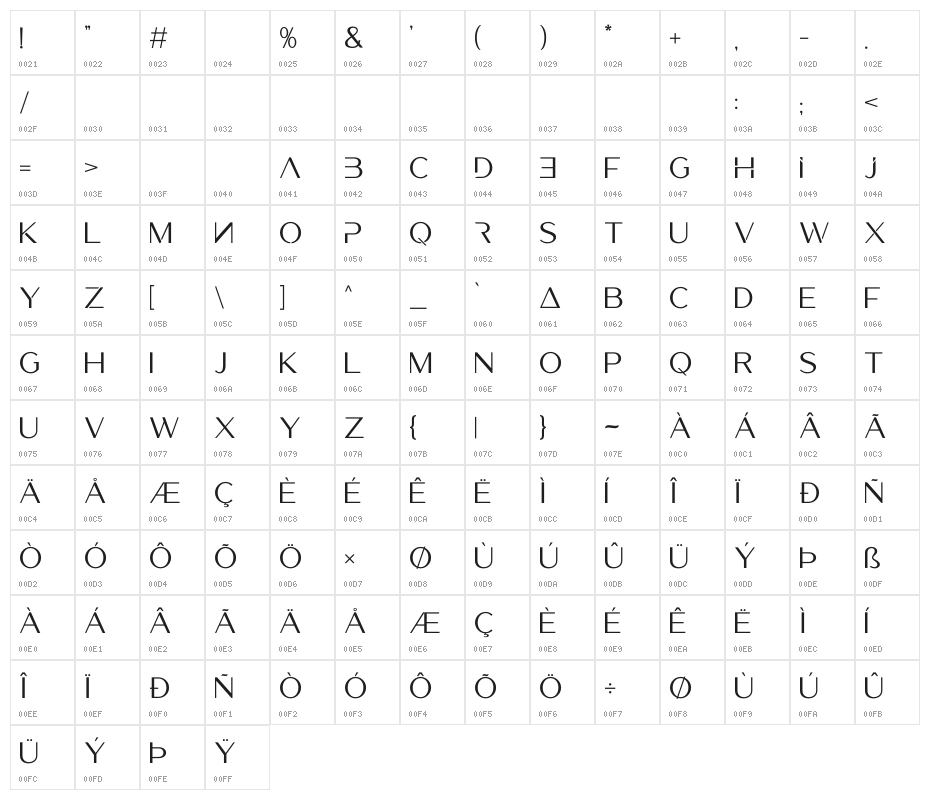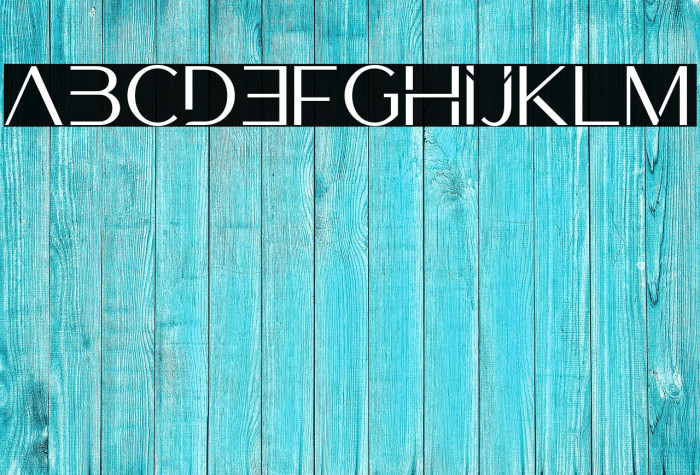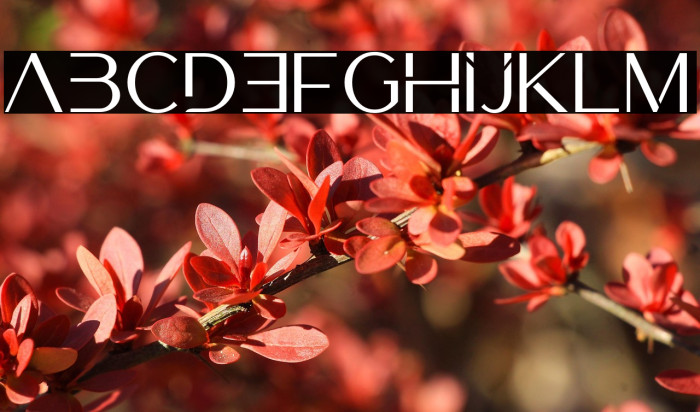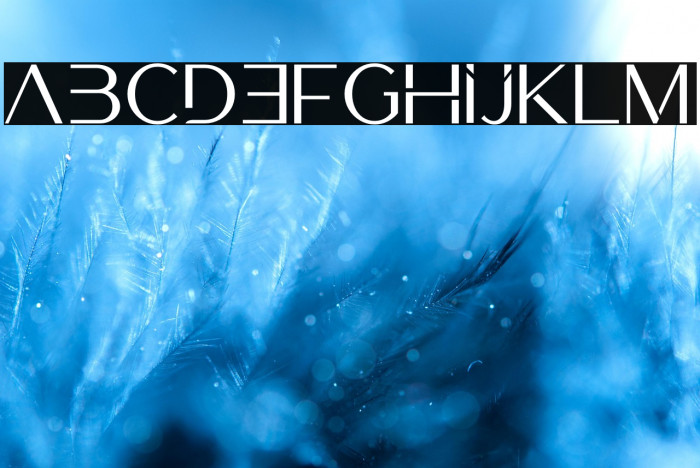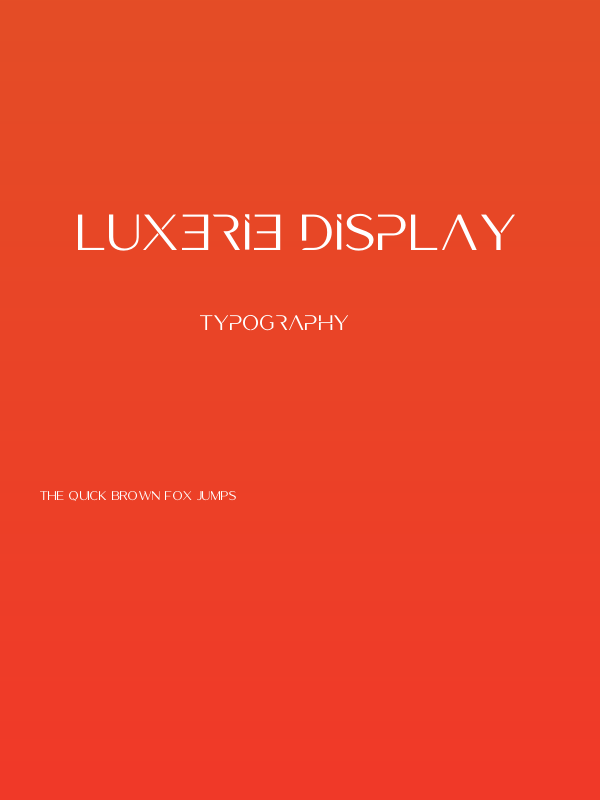
Luxerie Display Font
Luxerie Display Description
This font features a modern and sleek design with a geometric influence. The uppercase letters are characterized by clean lines and sharp angles, giving a futuristic and sophisticated feel. The lowercase letters maintain a consistent style, complementing the uppercase with a slightly more rounded approach. The numerals are straightforward and align well with the overall aesthetic. Special characters are designed with the same attention to detail, ensuring uniformity across all elements. This font's minimalist style makes it versatile for various design applications, from digital to print media.
| Use Case | Headlines, Logos, Digital interfaces |
| Proposed Projects | Ideal for branding, editorial design, digital interfaces, and advertising campaigns. |